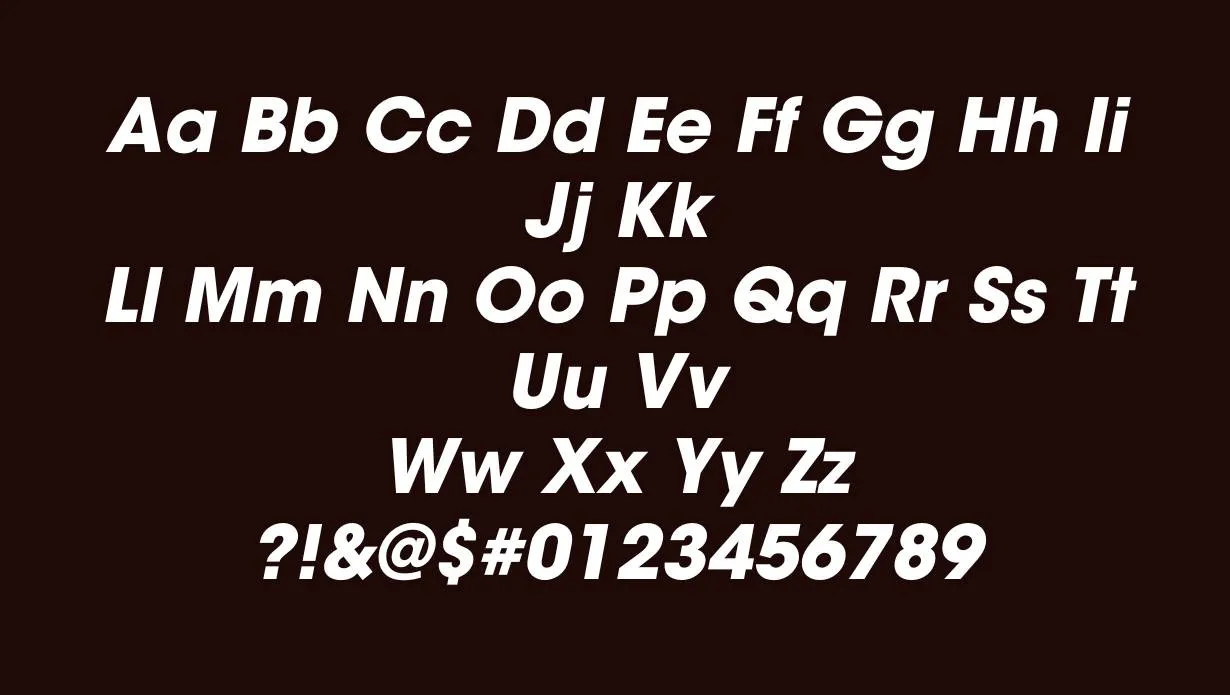
The ITC Avant Garde Gothic Std font brings a stylish and avant-garde touch. It feels sleek and modern. In Adobe Photoshop, this font can create chic magazine layouts or sophisticated designs.
| Name | ITC Avant Garde Gothic Std Font |
| Designer | Tom Carnase, Erich Gschwind |